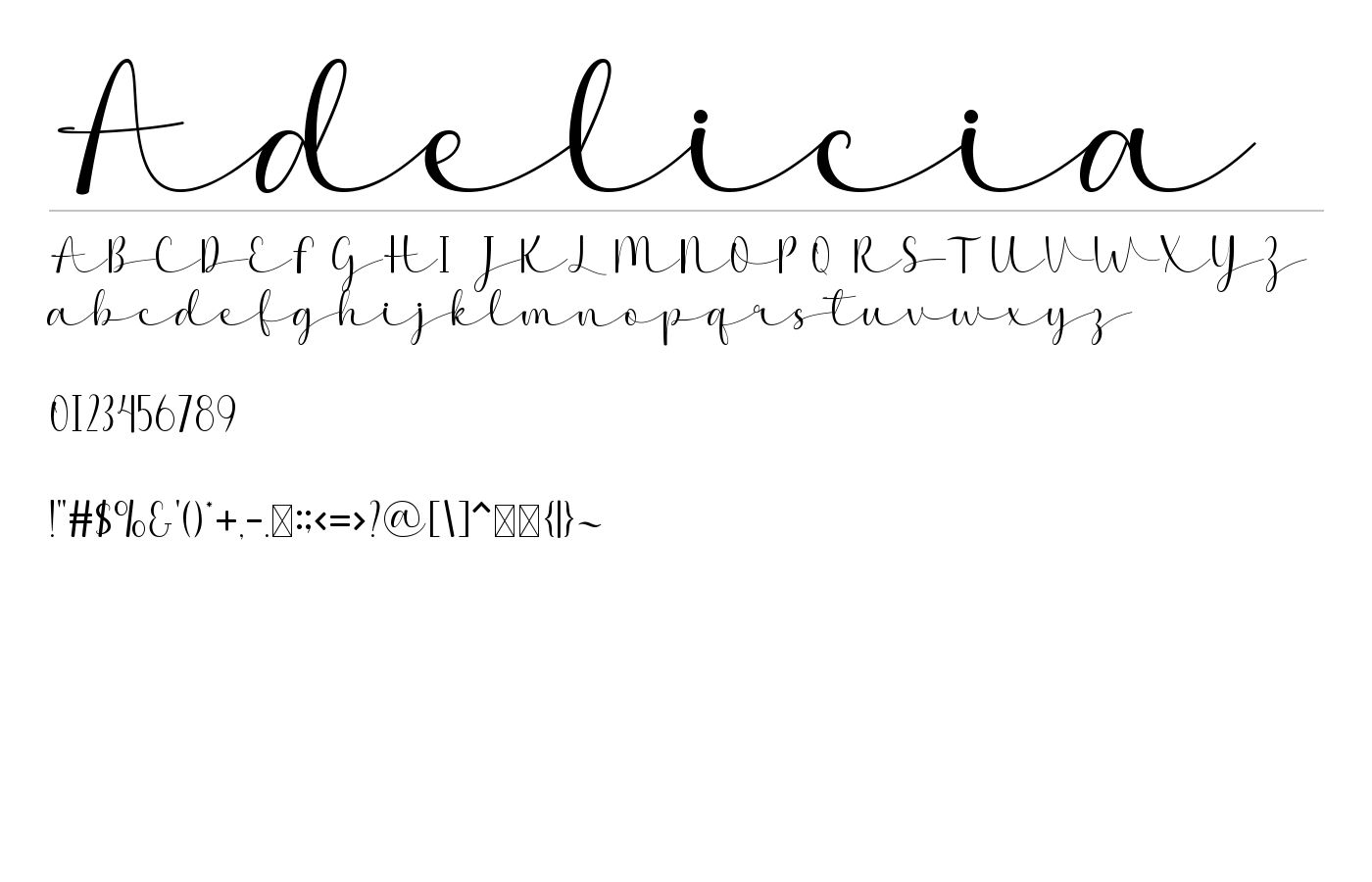
Adelicia is an elegant, modern script font with a delicate, flowing style that mimics natural handwriting. Its thin strokes and playful loops give it a light, airy feel, making it perfect for feminine branding, wedding invitations, and stylish editorial use where a touch of sophistication and charm is desired. This font stands out best in headlines, logos, and decorative text where its graceful personality can shine.
Adelicia Font
About Adelicia Font
| Font family | Adelicia Font |
| Designer | Wahyu Setiyawan |